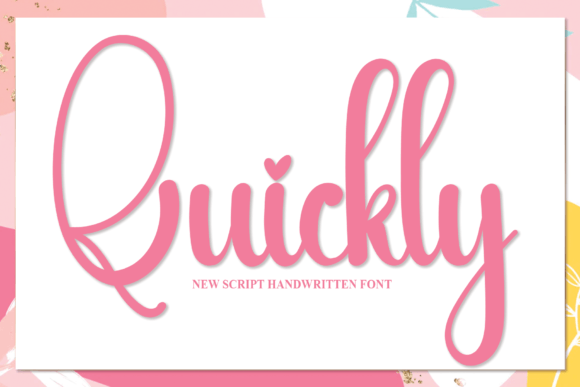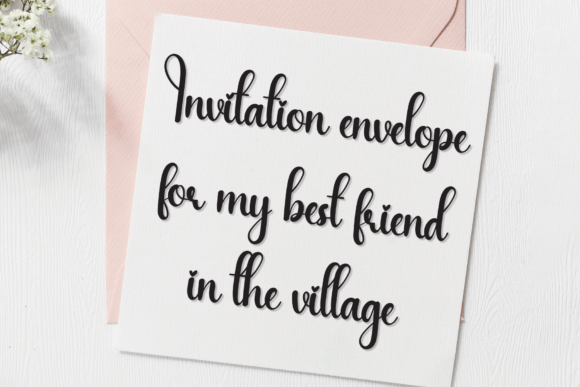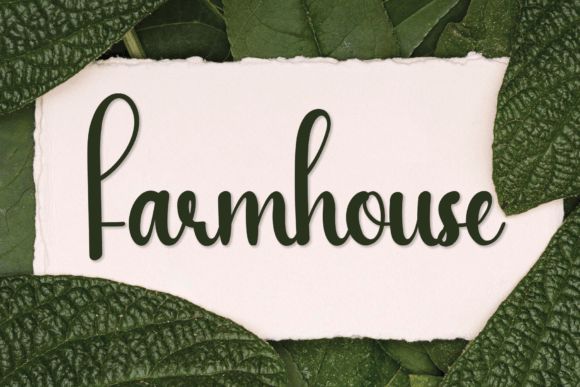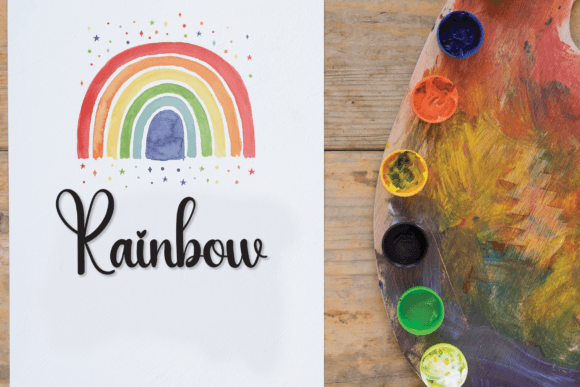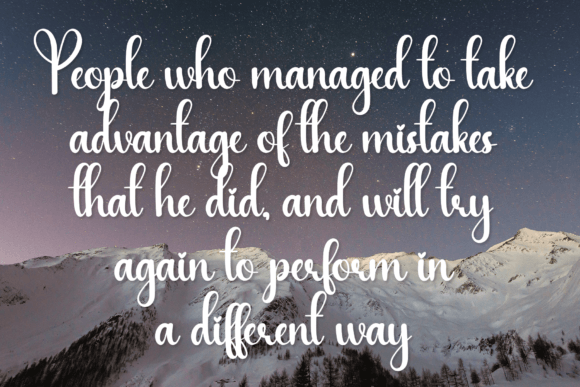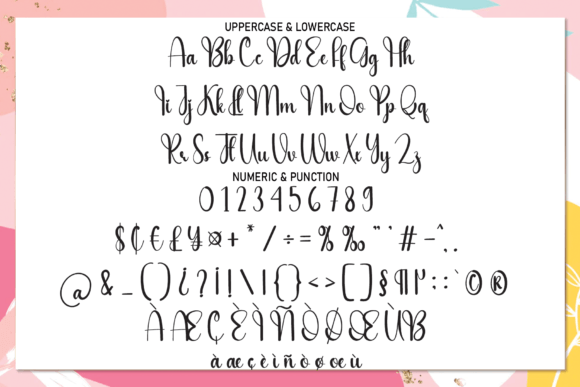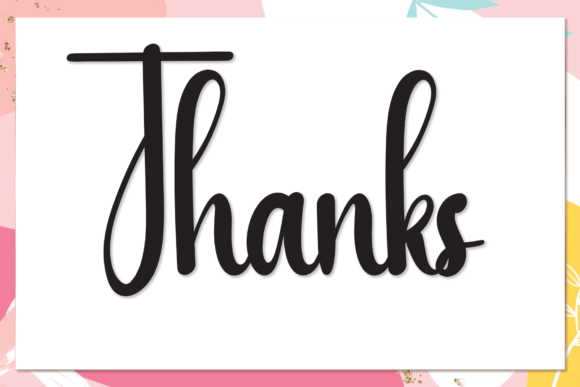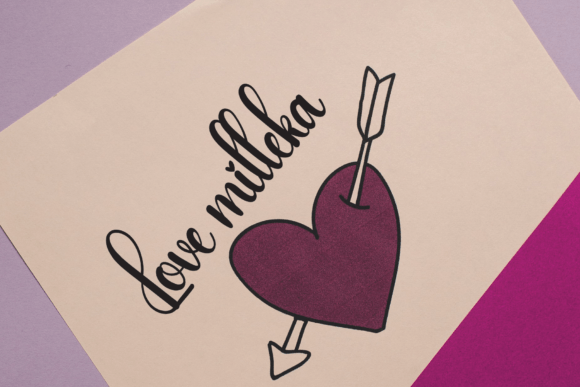
Quickly Font
A Lovely Handwritten Font for Creative Projects
The Quickly Font is a lovely handwritten typeface designed to bring a personal and charming touch to your creative projects. With its modern style and graceful design, this font is perfect for a variety of applications. Whether you’re working on wedding invitations, social media logos, advertisements, or product packaging, the Quickly Font adds a unique, handwritten feel to your work that will make your designs stand out.
Perfect for Wedding Invitations and Special Occasions
For wedding invitations and special occasions, the Quickly Font provides an elegant, romantic touch to your designs. Whether you’re creating invitations, save-the-dates, or thank you cards, this font gives your stationery a personalized and lovely feel. Its handwritten style ensures your materials stand out and convey a warm, personalized message.
Great for Social Media Logos and Branding
For social media logos and branding, the Quickly Font offers a charming, approachable style that works perfectly for personal brands, creative businesses, and lifestyle brands. Whether you’re designing Instagram logos, business cards, or website headers, this font gives your brand a unique, authentic look that connects with your audience and creates a lasting impression.
Ideal for Advertisements and Product Packaging
For advertisements and product packaging, the Quickly Font brings a fresh and friendly feel to your designs. Whether you’re creating flyers, posters, or product labels, this font adds a touch of playfulness and elegance to your materials. Its handwritten style makes it perfect for products and services that need to feel both personalized and stylish.
Perfect for Photography and Watermarks
The Quickly Font is ideal for photography and watermarks. Whether you’re adding a photographer’s signature to your images or creating custom watermarks, this font adds a personal touch to your photography portfolio. Its clean and lovely design ensures that your text remains clear and subtle, making it perfect for watermarks without detracting from the image.
Elegant, Legible, and Versatile
Despite its handwritten design, the Quickly Font is legible and versatile. Its smooth, well-spaced letters ensure clarity, even at smaller sizes or for longer text passages. Whether you’re creating headlines, captions, or body text, this font provides the perfect balance of style and readability, making it ideal for a variety of creative projects.
Add Charm and Style to Your Designs with Quickly Font
If you’re looking for a lovely, charming, and handwritten font to enhance your designs, the Quickly Font is the perfect choice. Whether you’re working on wedding invitations, logos, advertisements, or social media posts, this font brings a personal, unique touch to your work. Let the Quickly Font add elegance and charm to your creative projects and help them stand out with style.